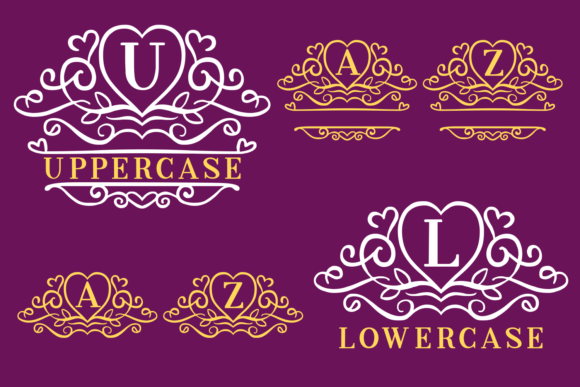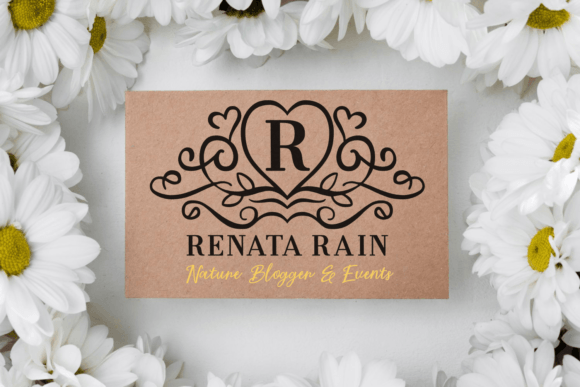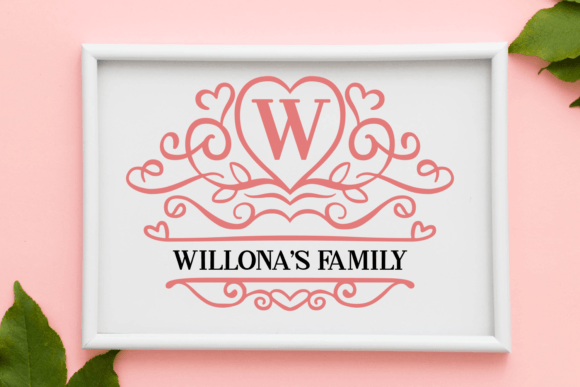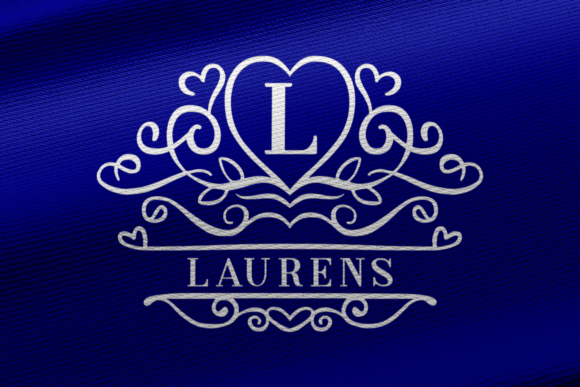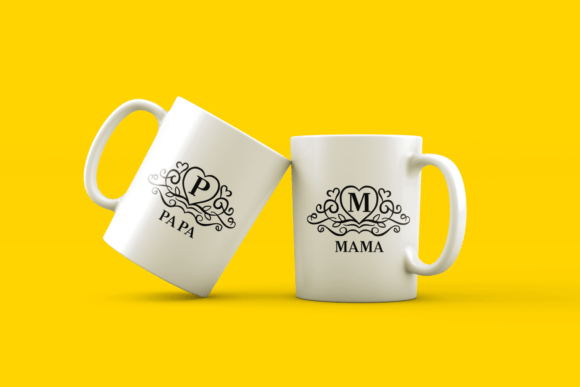
Introduction to Seyolla Font Font
Fonts play a crucial role in design, and the Seyolla Font font is a typeface that brings both character and versatility to any project. Whether you’re working on a branding project, a website, or a print design, the Seyolla Font font offers a unique style that can elevate your work.
Seyolla is an exquisite decorative font with sophisticated characters and a dainty appearance.
Use this gorgeous font to elevate the look of any item or project .
Key Features of Seyolla Font Font
Why Choose Seyolla Font Font?
The Seyolla Font font is more than just a typeface – it’s a design tool that helps you communicate your message with style and clarity. Its unique character set and versatile design make it suitable for a wide range of applications, from elegant invitations to bold headlines.
With its carefully crafted letterforms and balanced proportions, the Seyolla Font font ensures readability and visual appeal across all mediums.
What makes Seyolla Font font special?
The Seyolla Font font stands out with its unique design, exceptional readability, and versatility across various design applications.